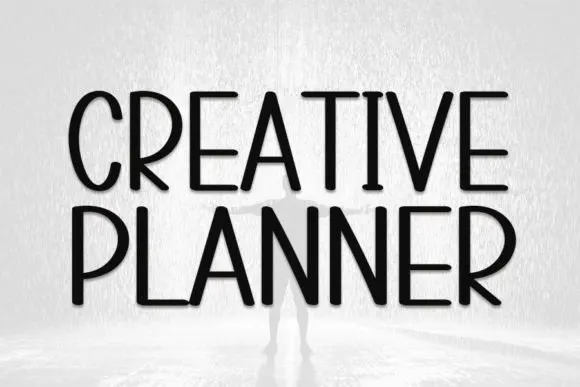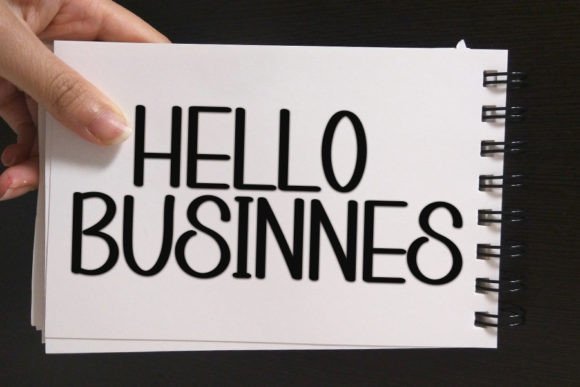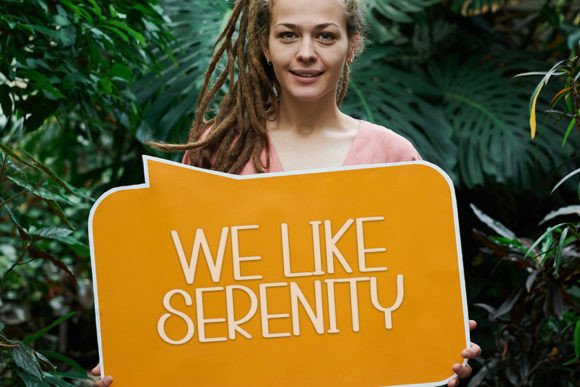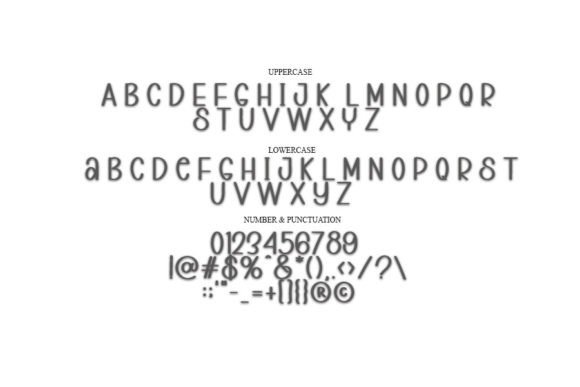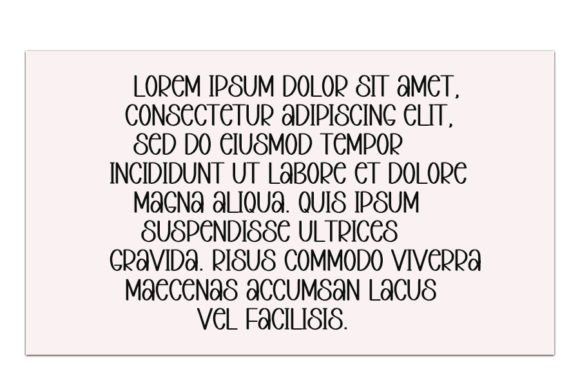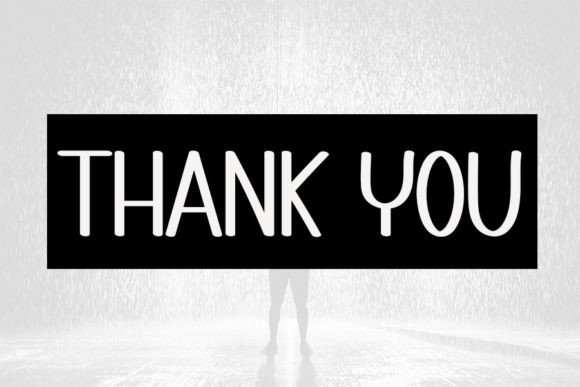
Creative Planner
Creative Planner Font: Versatile Typeface for Business & Design
Unlock limitless creativity with Creative Planner, a meticulously designed font that combines professional elegance with exceptional versatility. This PUA-encoded typeface delivers stunning typography for everything from business branding to special event designs, helping you make a lasting impression.
Why Choose Creative Planner
• Premium Design: Sophisticated yet approachable style
• PUA Encoding: Full access to 800+ glyphs and swashes
• Universal Application: Perfect for print and digital media
• Brand Growth: Enhances professional credibility
Professional Applications
Business Essentials
Ideal for:
• Corporate branding and logos
• Marketing materials
• Professional presentations
Creative Projects
Perfect for:
• Wedding invitations
• Event banners
• Social media graphics
Plan. Create. Inspire.
• Character Set: Extended Latin + Cyrillic
• Special Features: Stylistic alternates, ligatures
✏️ Designer Tip: Use alternate glyphs to create unique wordmarks that stand out.
Perfect Pairings
1. Modern Contrast: with Montserrat
2. Classic Elegance: with Garamond
3. Minimalist Balance: with Avenir Next